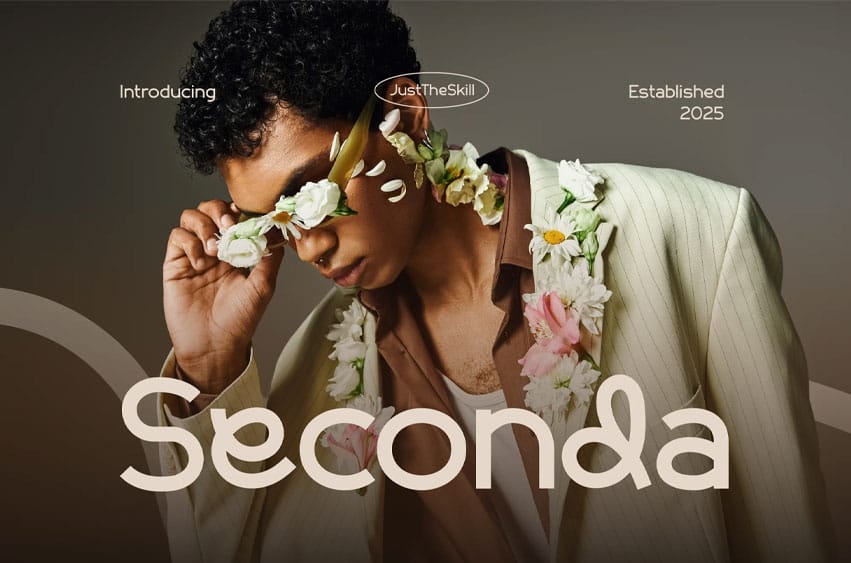
Seconda Font is a modern display font with soft rounded curves and smooth proportions, designed to bring a warm yet professional feel to your projects. Its expressive letterforms combine a playful vibe with geometric balance, making it ideal for fashion campaigns, Instagram visuals, lifestyle branding, and editorial layouts. With its bold presence and stylish rhythm, Seconda captures attention while maintaining easy readability.
Perfect for branding, posters, packaging, and social media graphics, Seconda bridges creativity and clarity. Designers seeking a font that conveys confidence, collaboration, and calm elegance will find Seconda to be an adaptable tool for building memorable identities. Whether for editorials, startup campaigns, or modern apps, its unique tone elevates both digital and print designs with a contemporary edge.
Key Features :
- Rounded, modern curves for a friendly yet stylish tone
- Bold character shapes with smooth contrast for impactful visuals
- Versatile design suitable for editorial, branding, and packaging
- Creative flow that enhances quotes, headlines, and logos
- Professional readability across print and digital formats